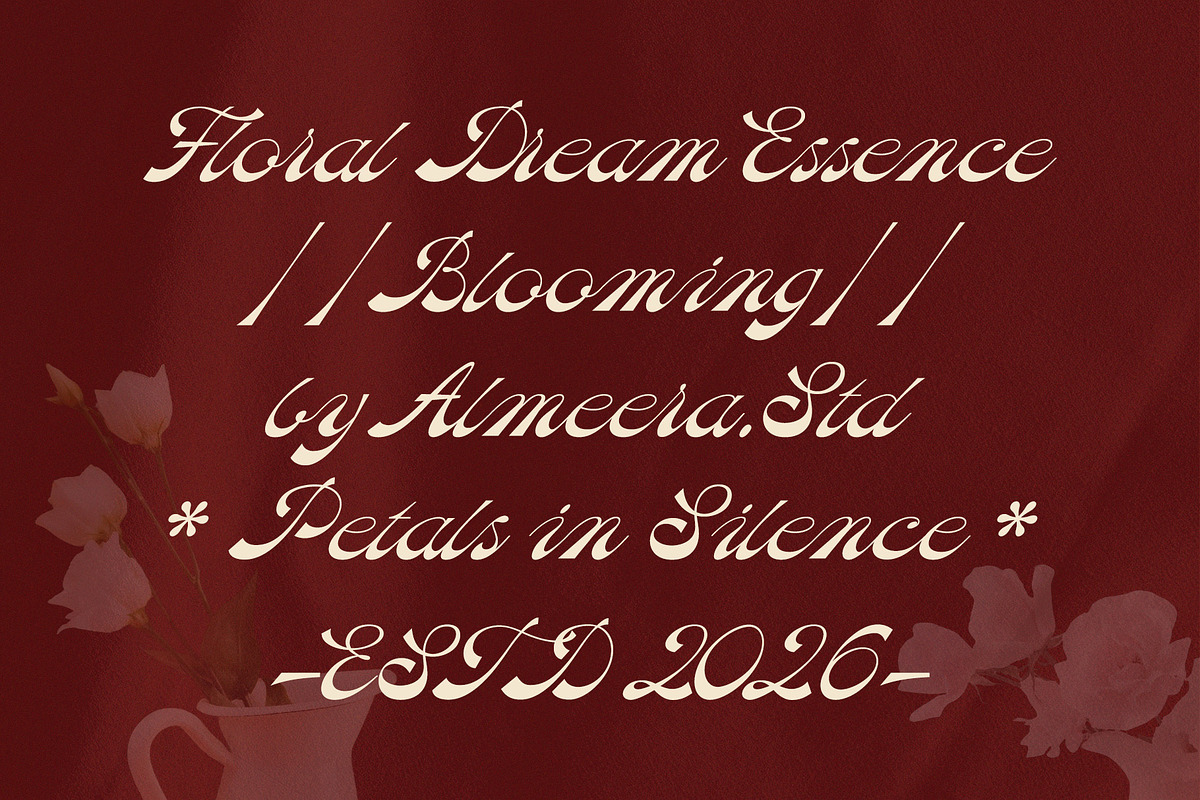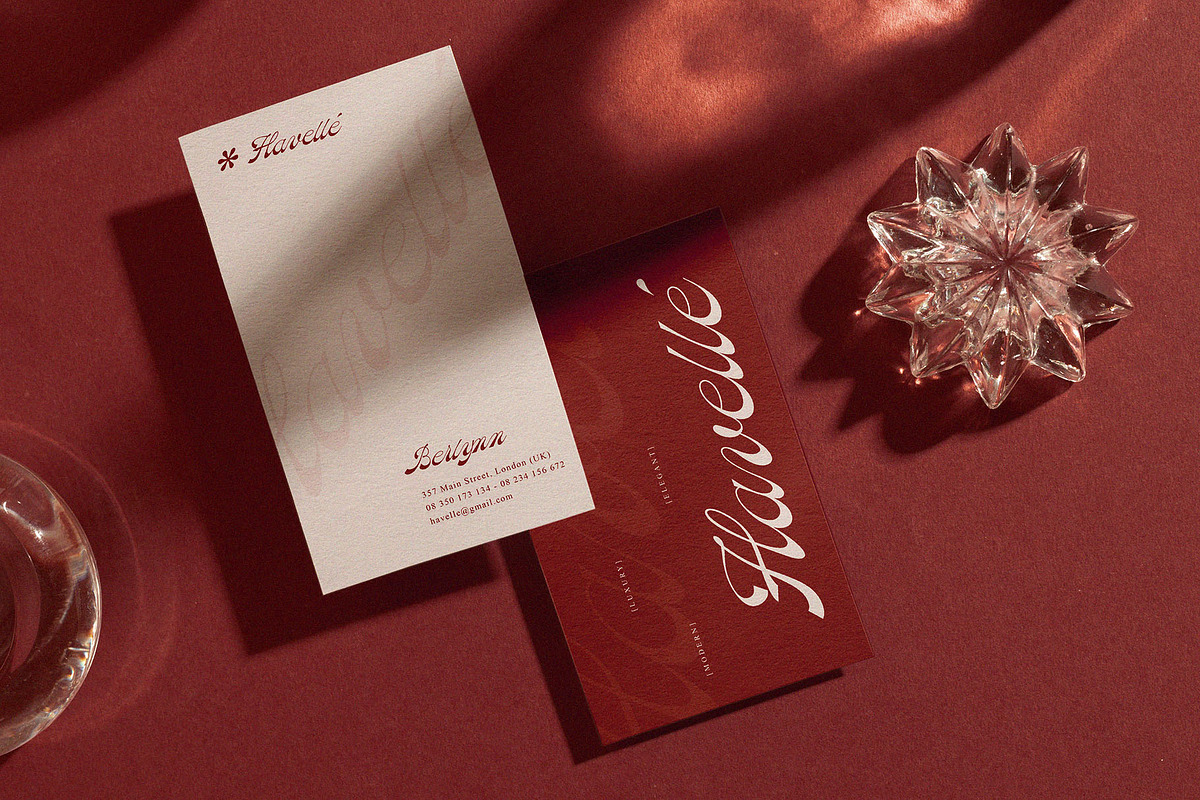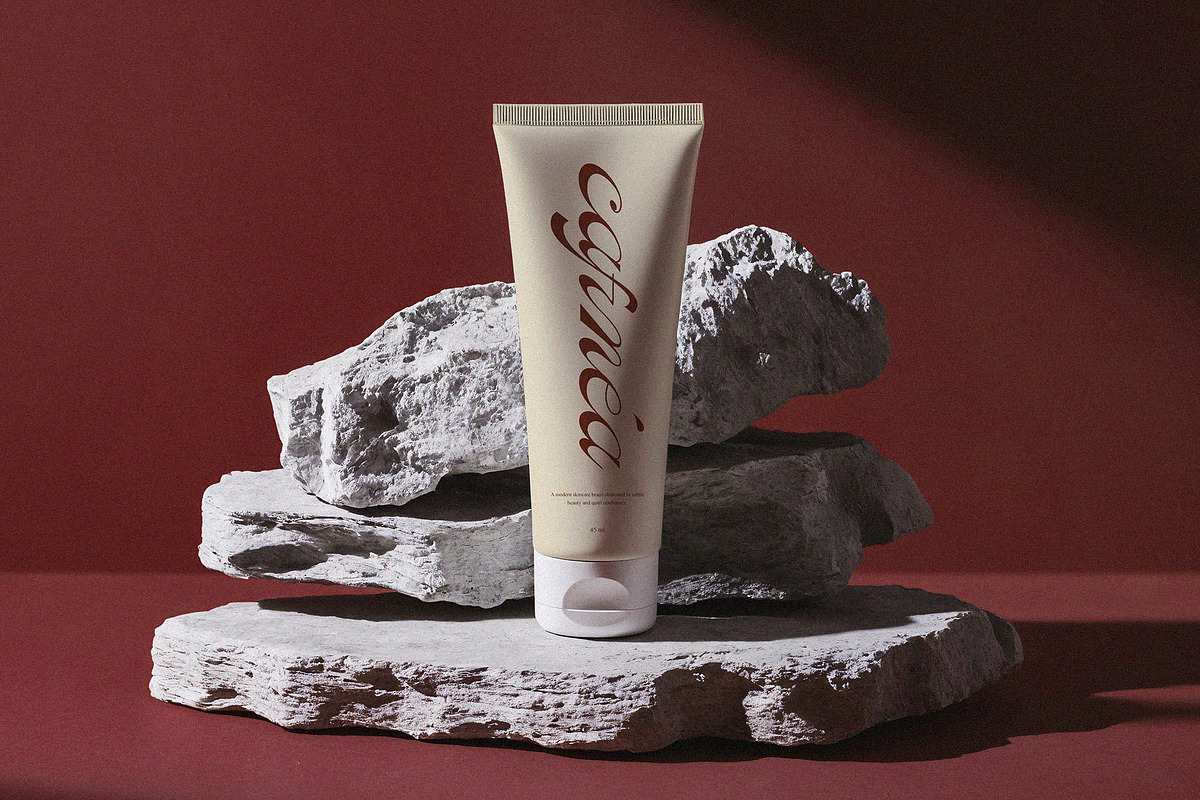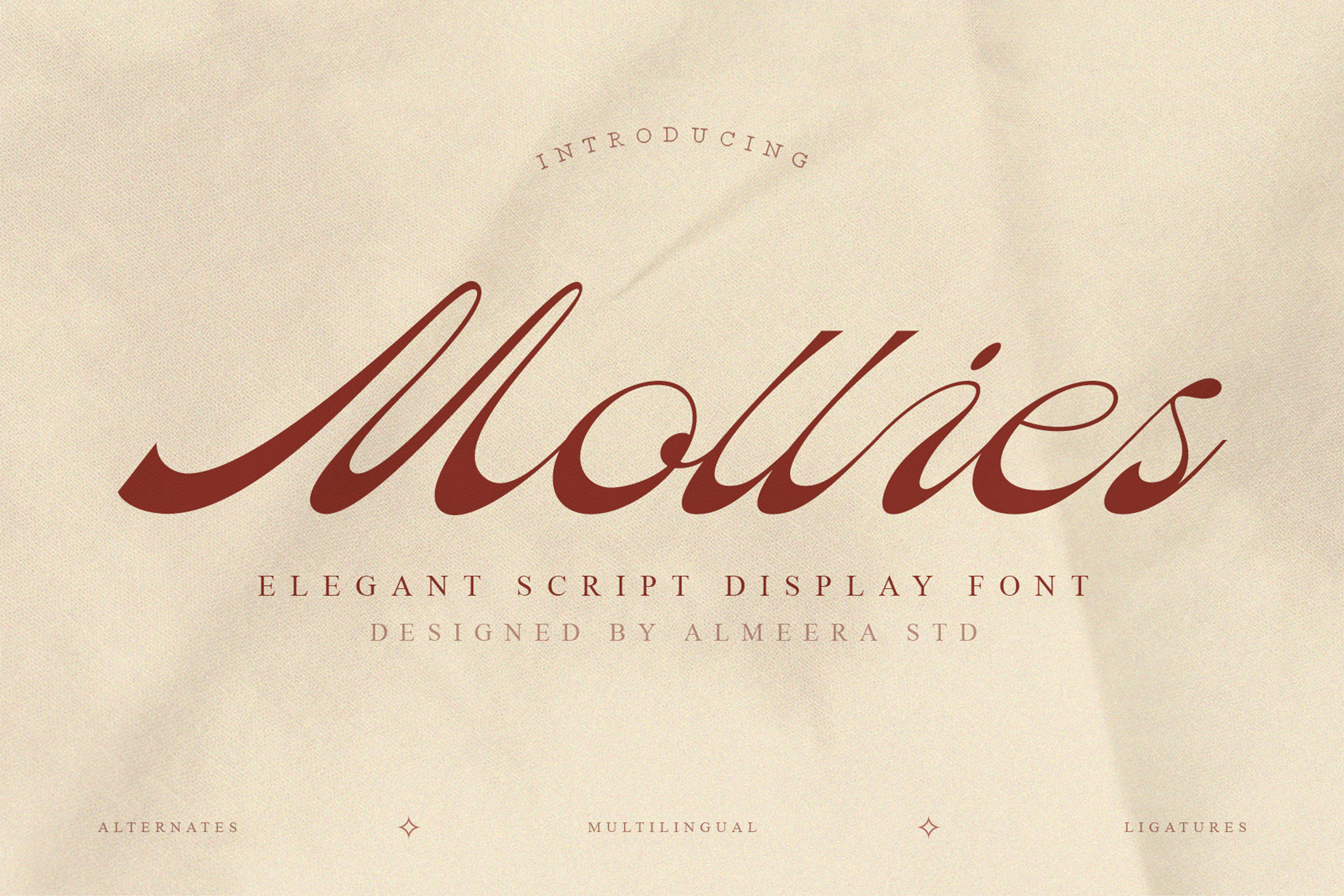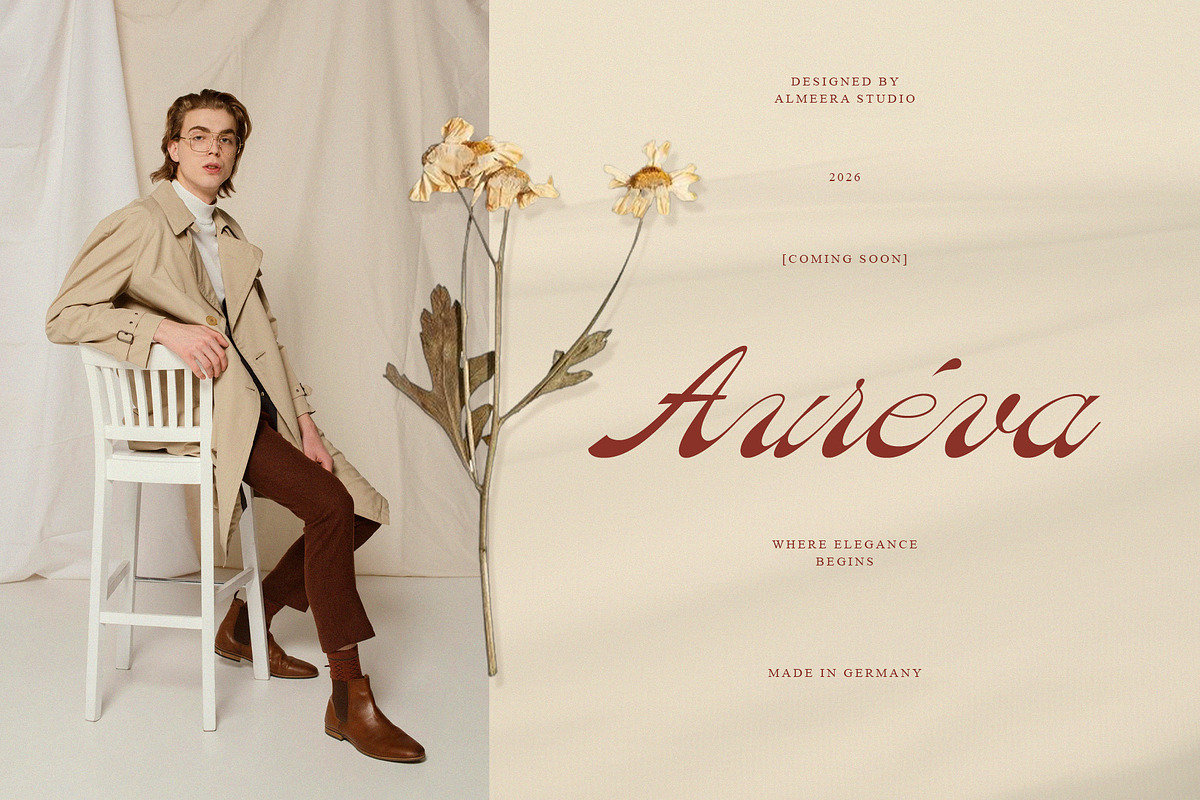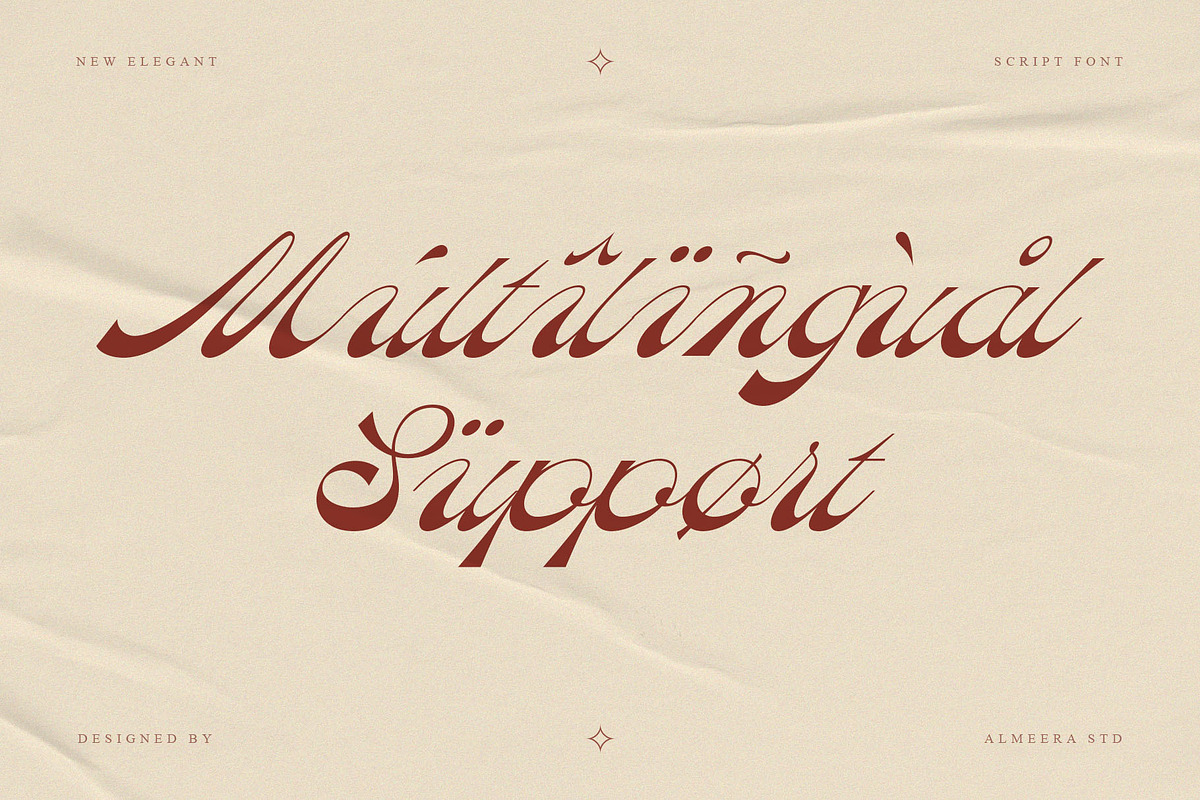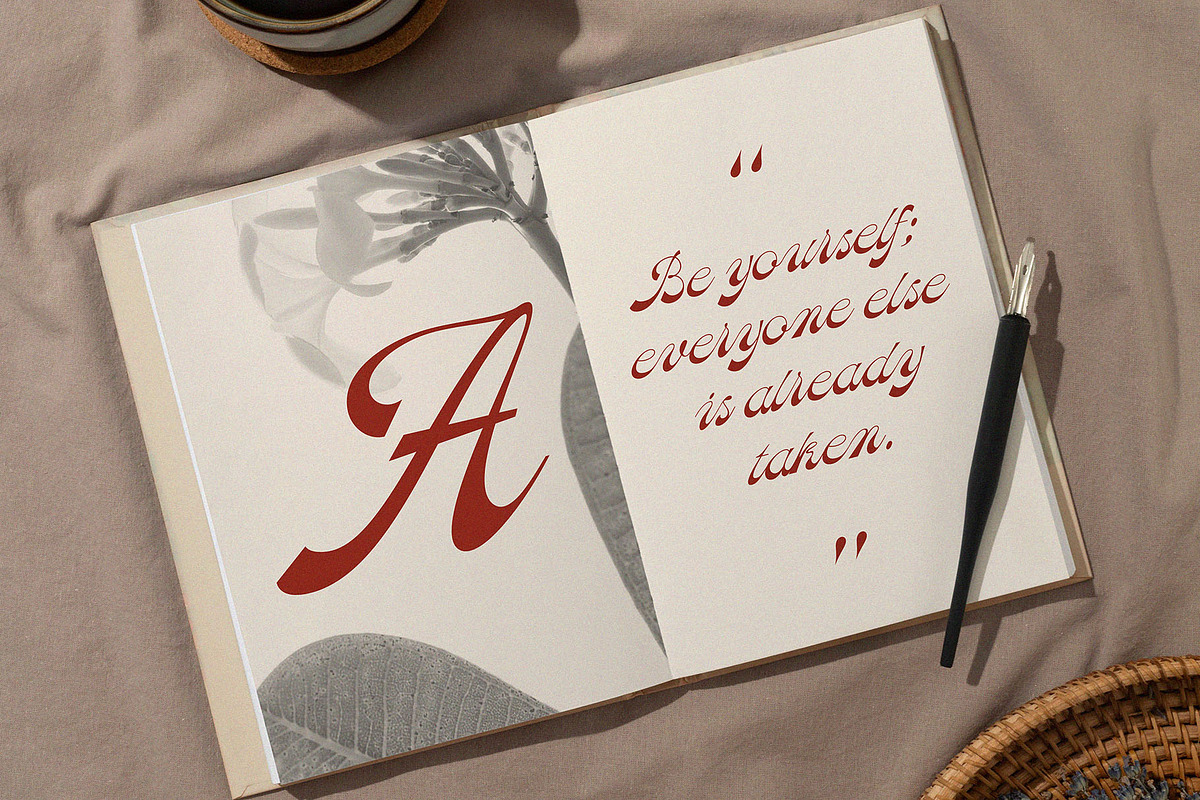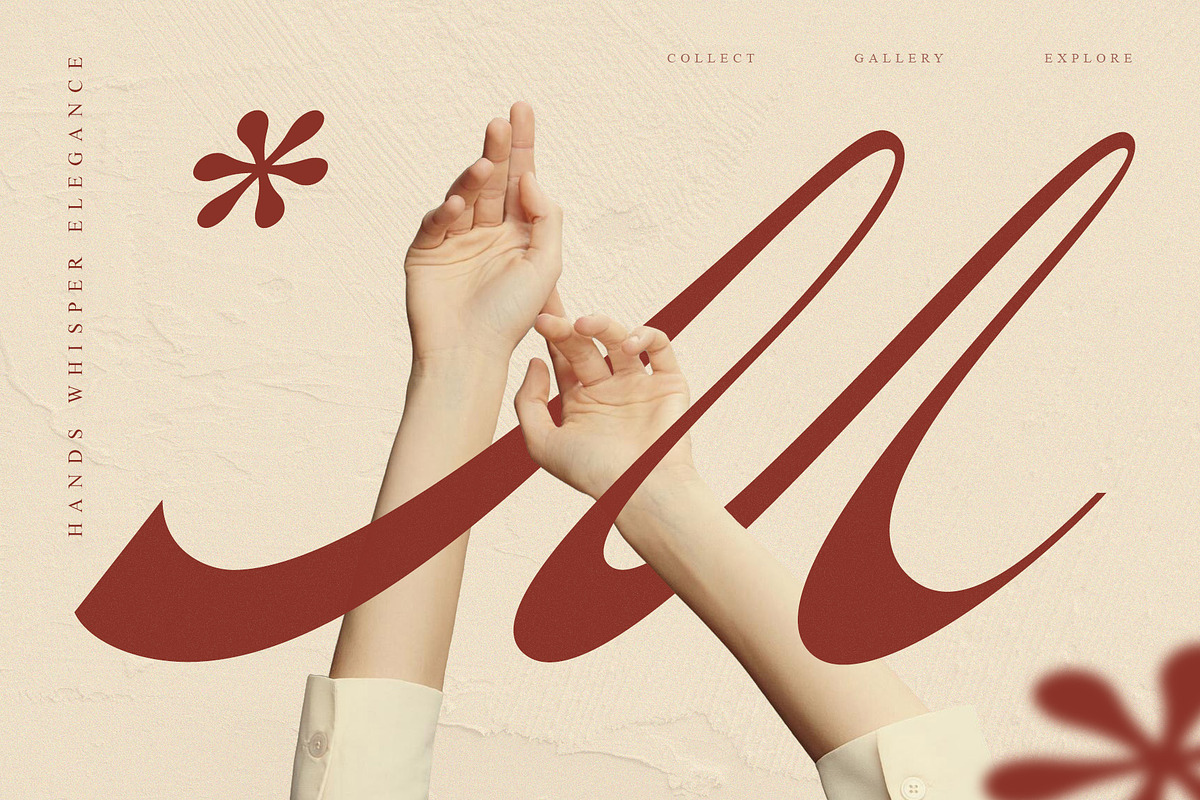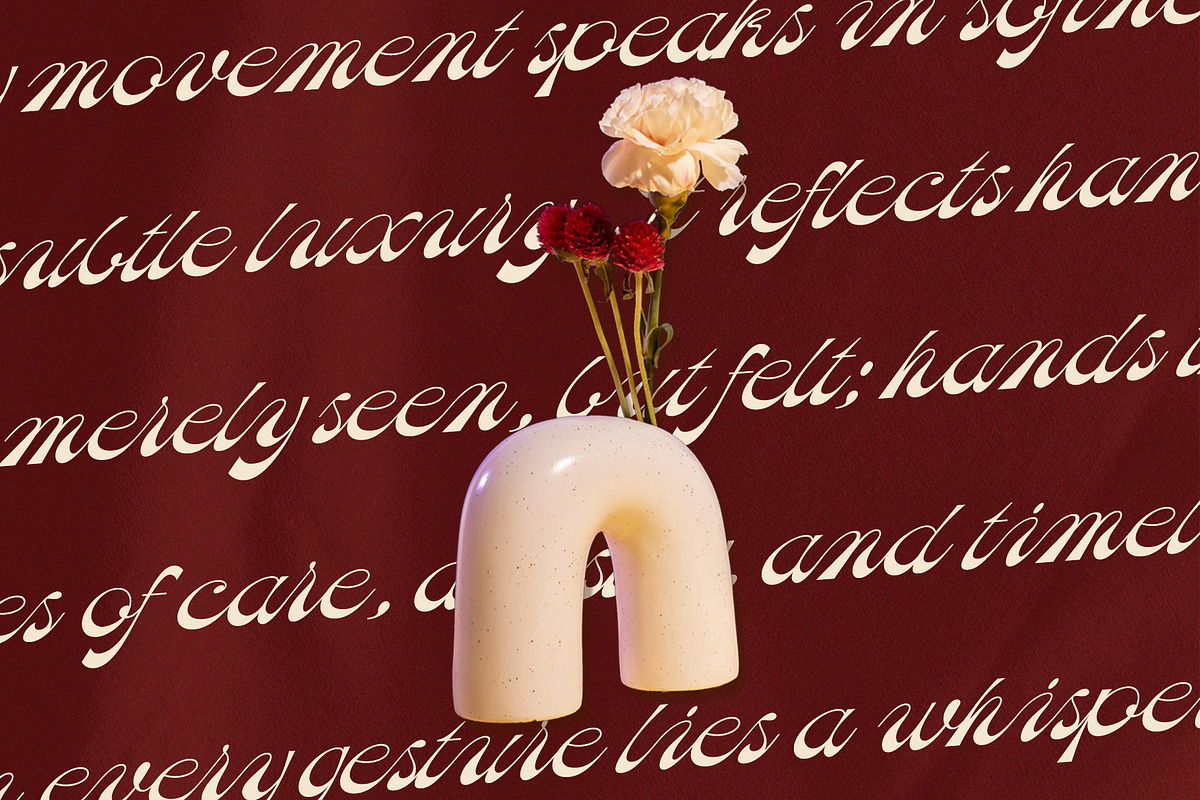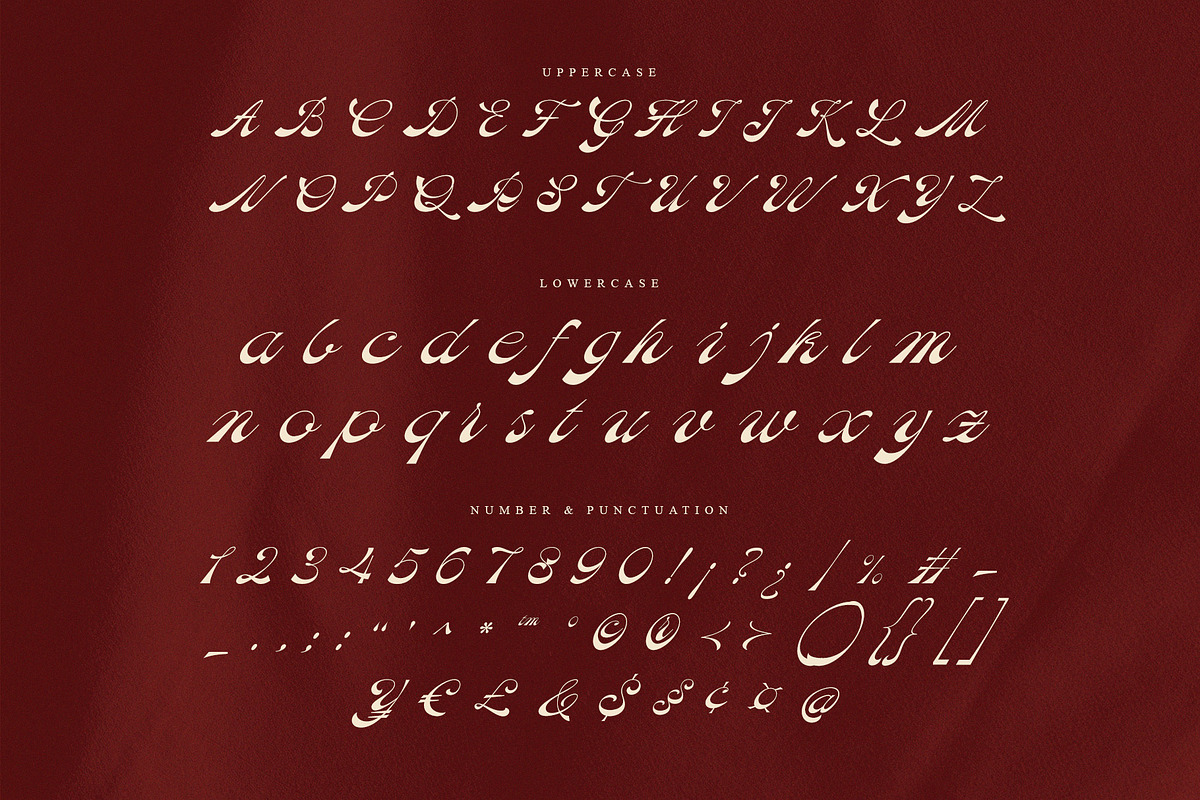
Mollies - Elegant Script Font
Mollies is a bold, high-contrast display script that moves with the confidence of ink drawn by a practiced hand. Its sweeping curves, dramatic thick-to-thin transitions, and looping connectors create a typographic flow that is simultaneously classic and irresistibly modern.
Where most script fonts whisper, Mollies speaks with conviction. The letterforms carry a rich calligraphic heritage — evident in the generous swash entries and elegant tail finishes — while the overall character remains fresh and contemporary. This is a script built for display, not for body text, and it knows it.
Mollies excels wherever emotion and craft intersect: artisan product labels, boutique branding, premium packaging, editorial covers, beauty campaigns, wedding stationery, and creative poster design. Paired with a clean geometric sans, it creates compositions with immediate visual impact.
Elegant Script Display — one expressive weight Alternates & Ligatures Multilingual support.
Ideal for: artisan branding, beauty labels, editorial, wedding stationery, poster design, boutique identity
\- Numbers, fractions
\- Punctuation and symbols
\- Alternates
\- Ligatures
\- Multilingual support